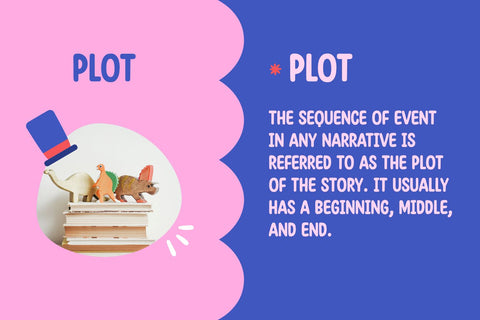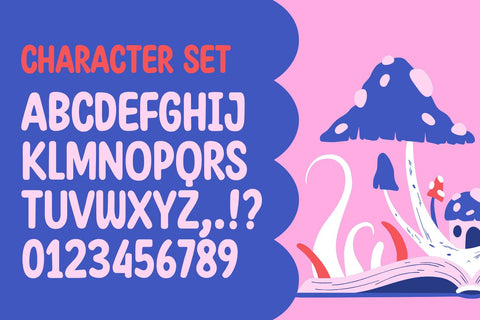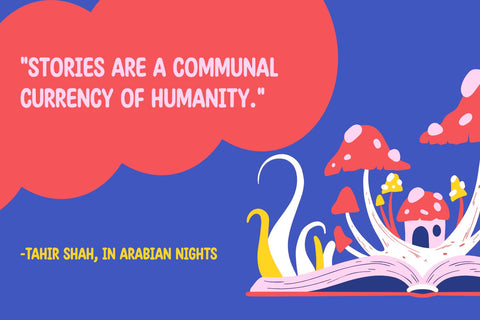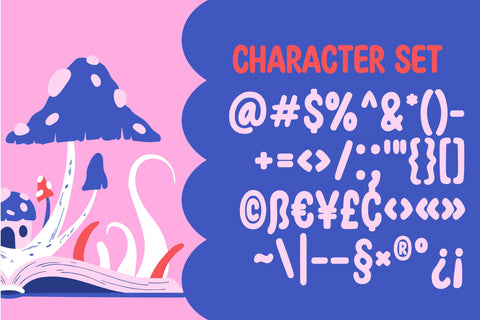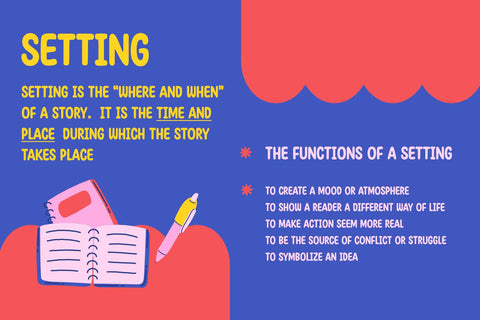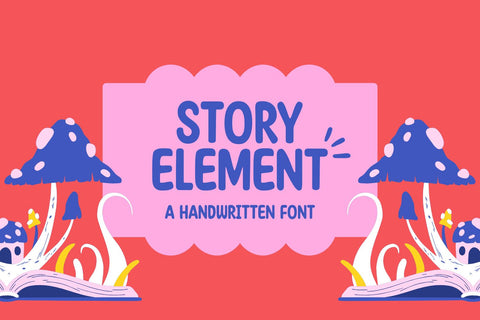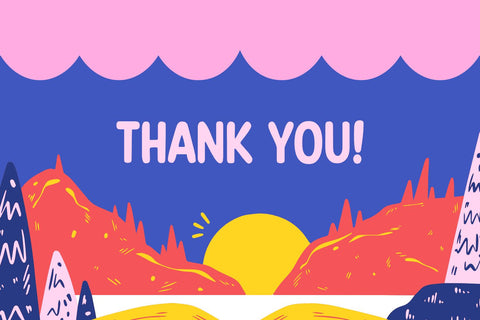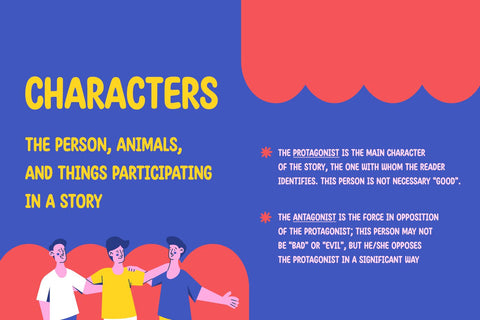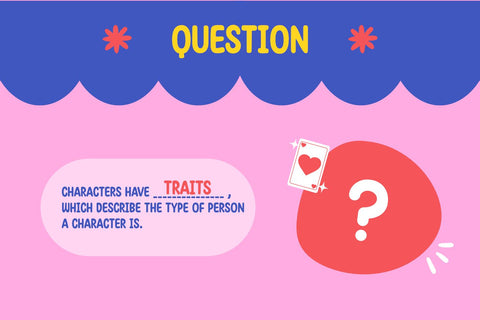
Story Element - a Handwritten Font
Story Element is a friendly, simple and fun handwritten font. Whether you’re using it for crafts, digital design, presentations, or making greeting cards, this font has the potential to become your favorite go-to font, no matter the occasion!